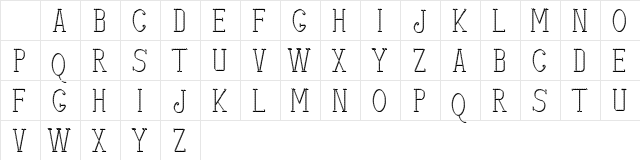
Complete stitches shadow Regular glyph index. Displaying only characters natively supported by stitches shadow Regular font.
stitches shadow is built around its visual character rather than neutral utility - its distinctive forms are designed to make an impression at display sizes.
Font Pairing: Pair with a clean neutral sans-serif for body copy to let stitches shadow's character lead without overwhelming the composition.
Pro Tip: Use stitches shadow exclusively at display sizes - it was designed to be seen, not read at length. Let a neutral companion handle body copy.